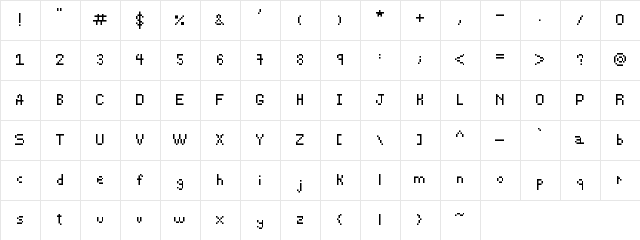
ohmaigosh Regular
| Designer | goldypuppydog |
Design Context for ohmaigosh Typeface
ohmaigosh takes a measured approach to typography — its balanced proportions and neutral character make it a reliable workhorse for both digital and print work.
Pro Tip: Pair ohmaigosh with a font of contrasting weight or personality to build a more expressive typographic hierarchy.